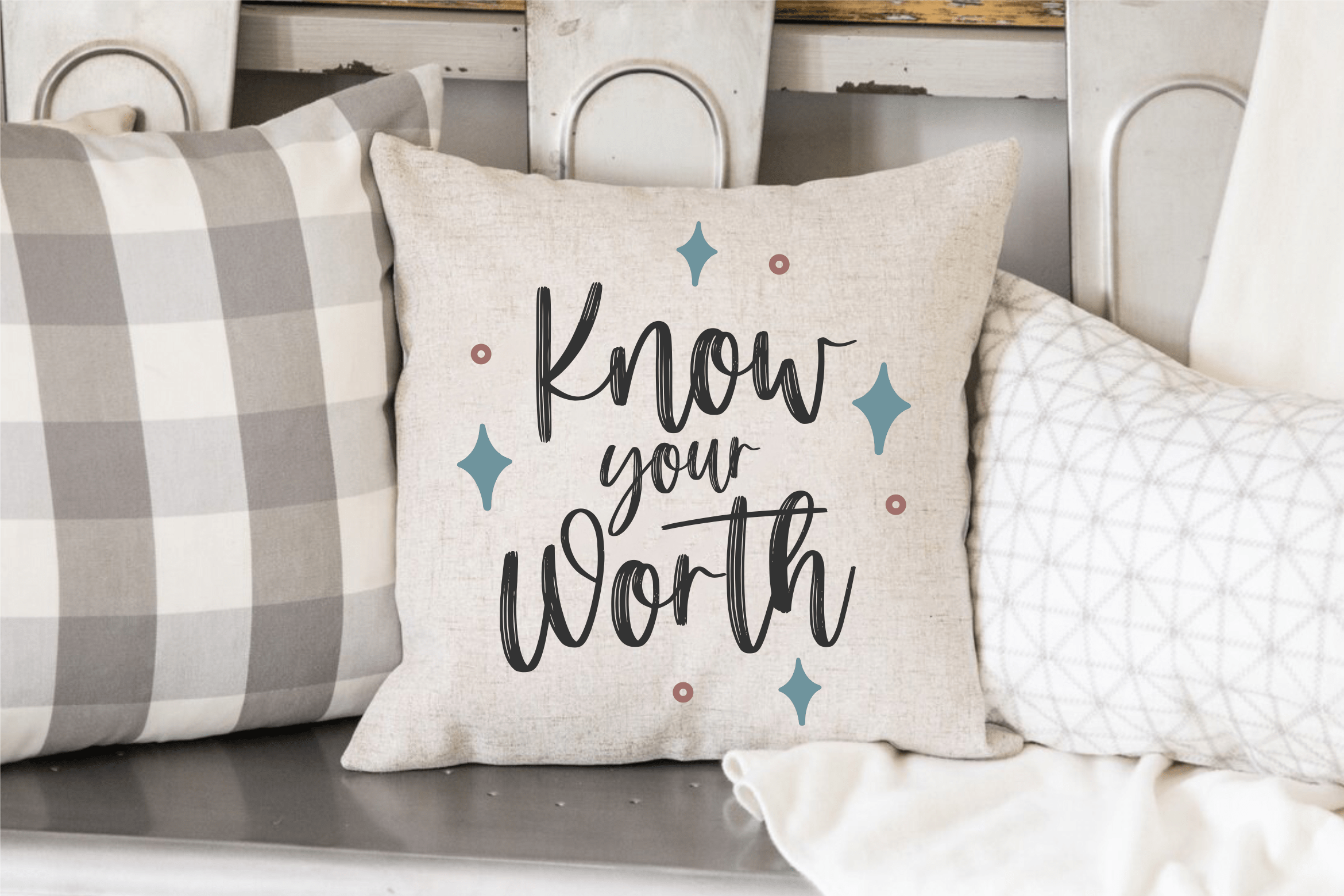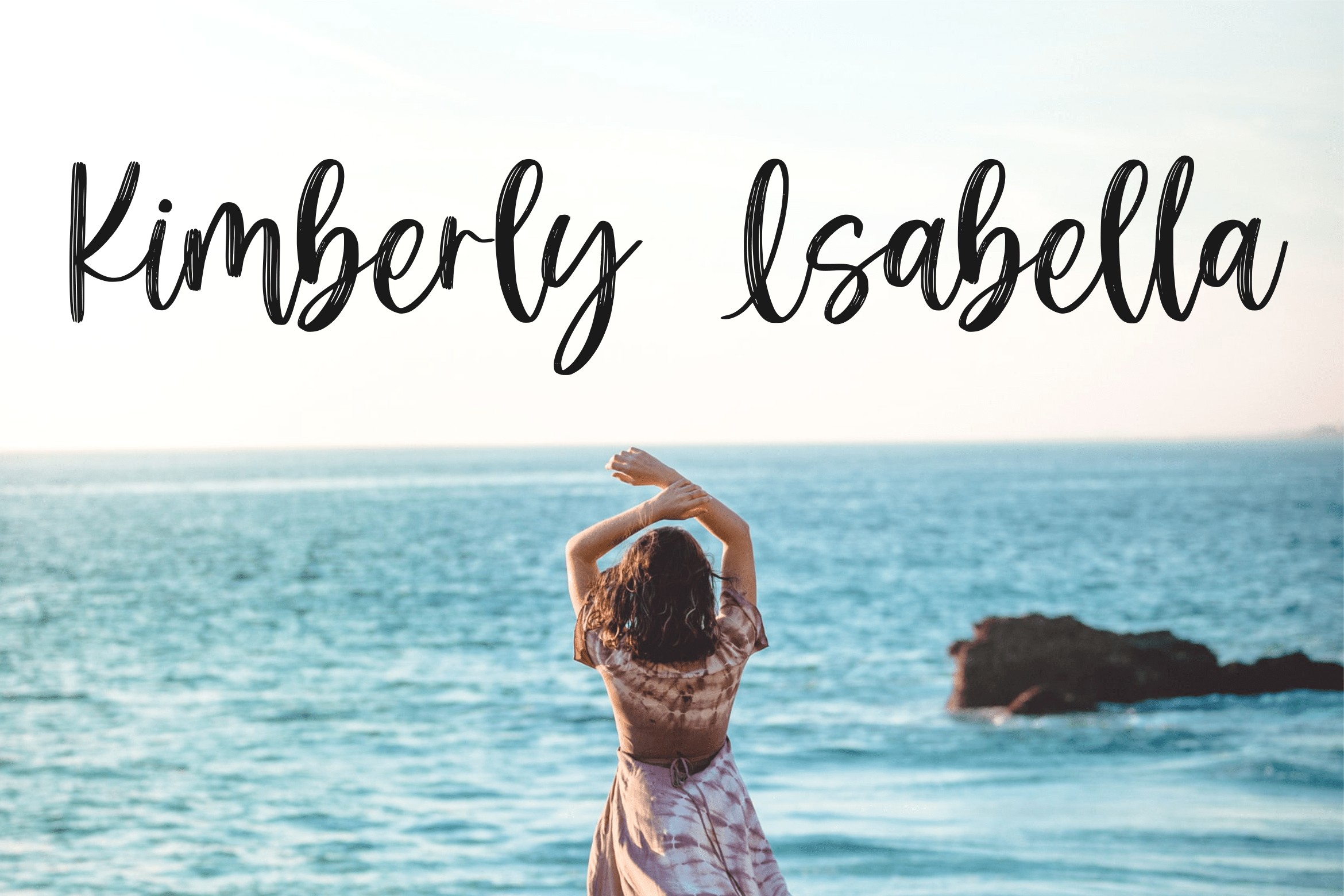
Oakblush Brush Font
This is a stylish and beautiful script font. Oakblush is perfect for product packaging, branding project, magazine cover, social media, wedding, or just used to express words above the background.